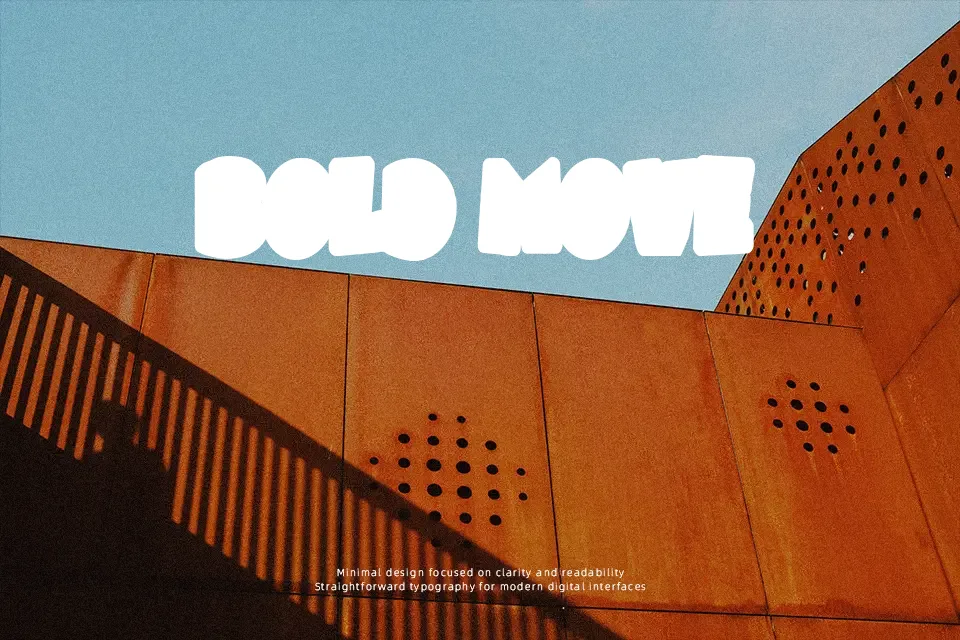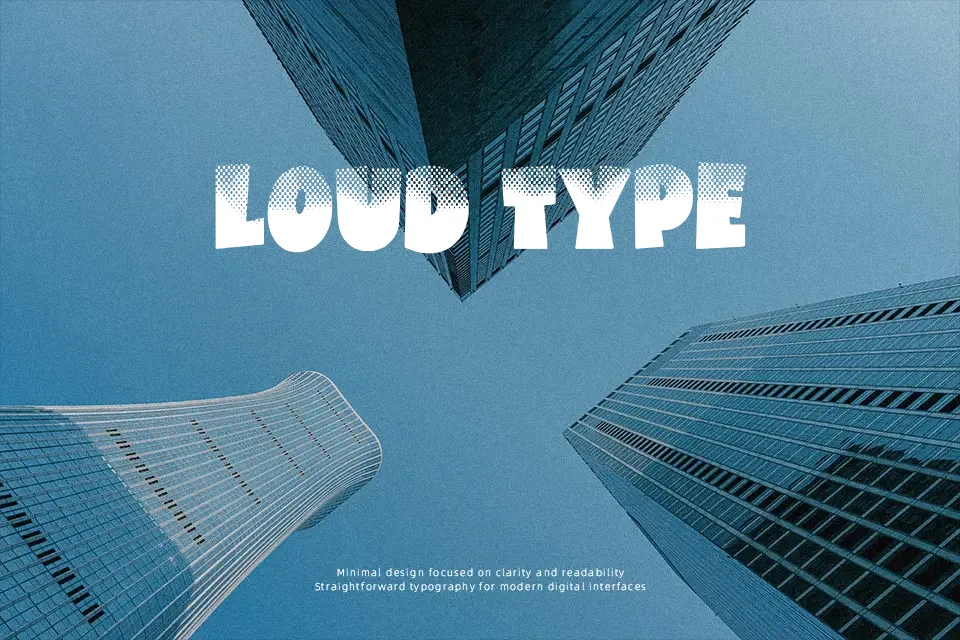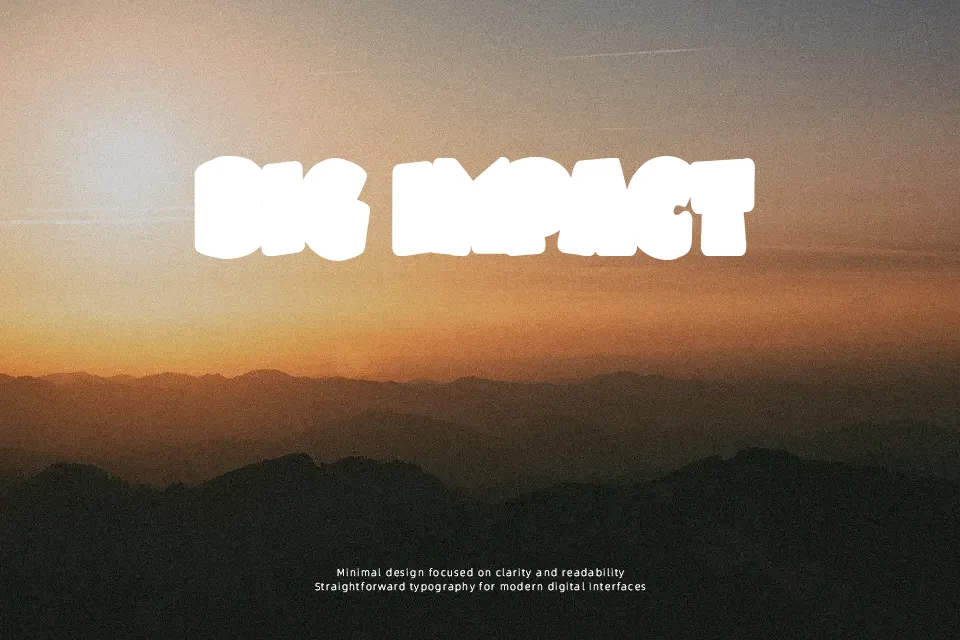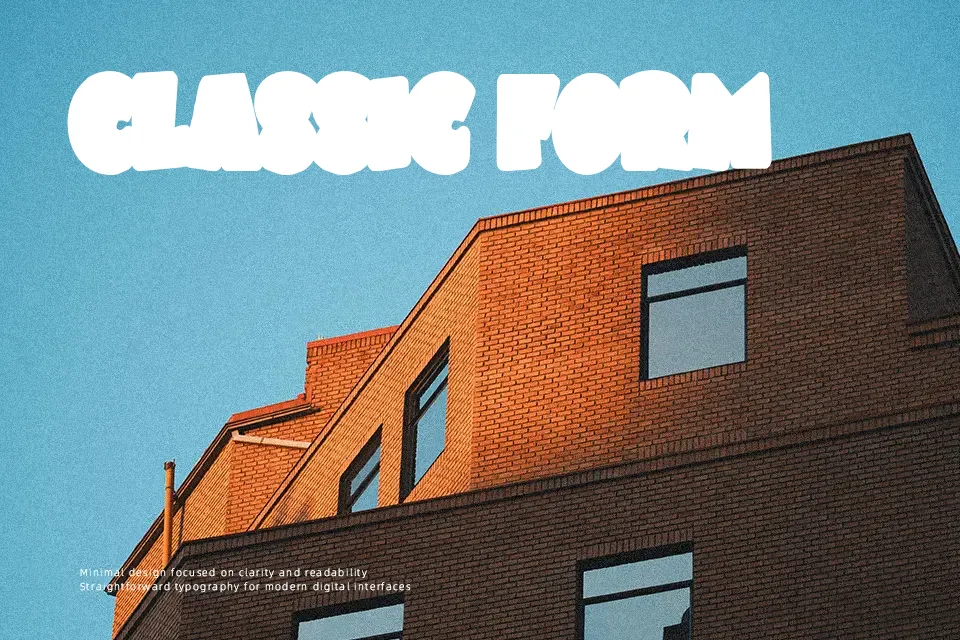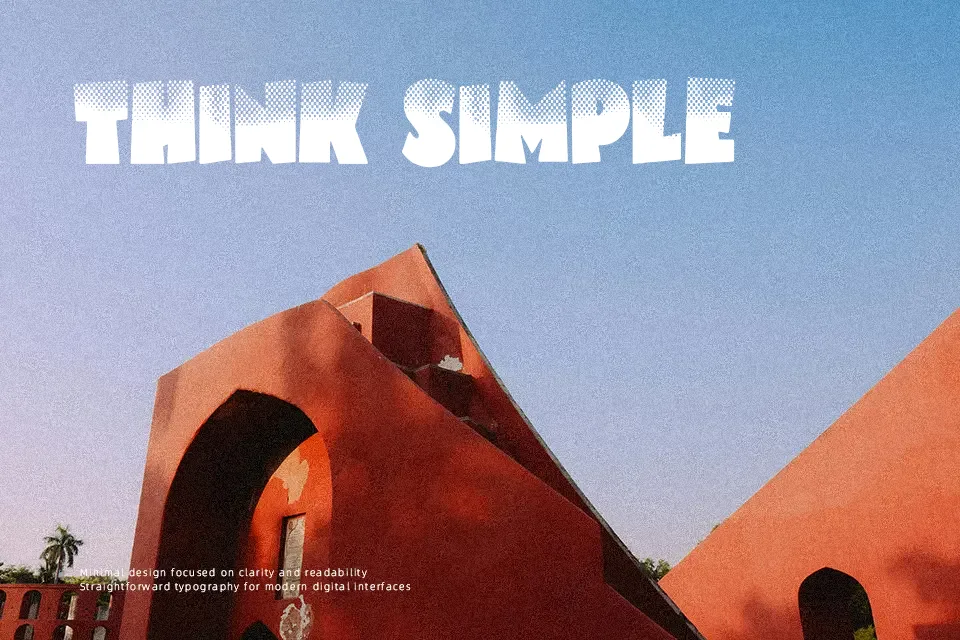
Bubblegum Font
Bubblegum Font delivers thick, rounded strokes with loose, bouncy shapes that read instantly as fun and informal. The letters feel slightly irregular, with generous curves and compact spacing that keep words visually tight and punchy. Overall it leans strongly decorative and cartoon-like, so it shines when used in short headlines, candy or toy packaging concepts, birthday invitations, or youth-focused branding where you need a loud, cheerful voice. In longer paragraphs or serious editorial work, the weight and playfulness quickly become tiring, so it is better kept for display moments rather than body text. If you like bold comic styles, this font sits in the same territory as classic cartoon lettering but with a softer, bubblier silhouette.
Kids party posters and invitations
Candy, toy, or snack packaging mockups
Playful logo wordmarks and badges
Youthful social media titles and thumbnails
Long body text or dense paragraphs
Formal corporate branding or reports
Serious editorial or news layouts
Perfect for branding, kids, and logo, with a bold and cartoon style.